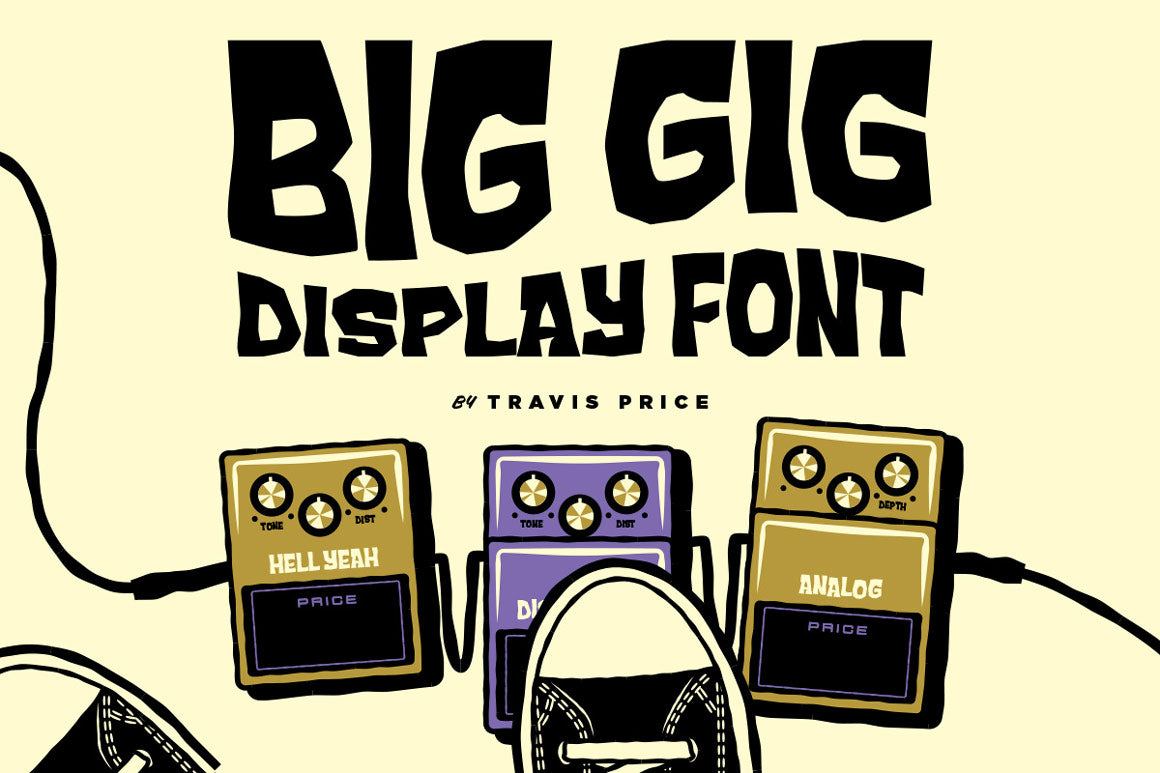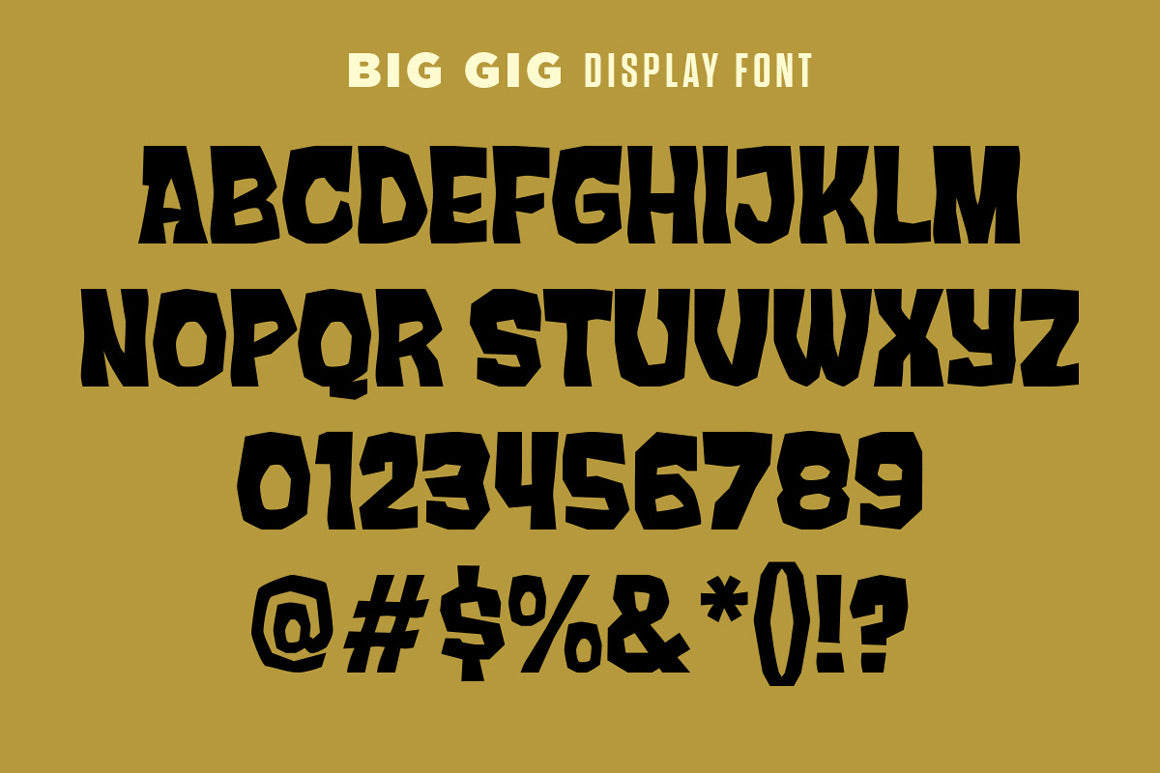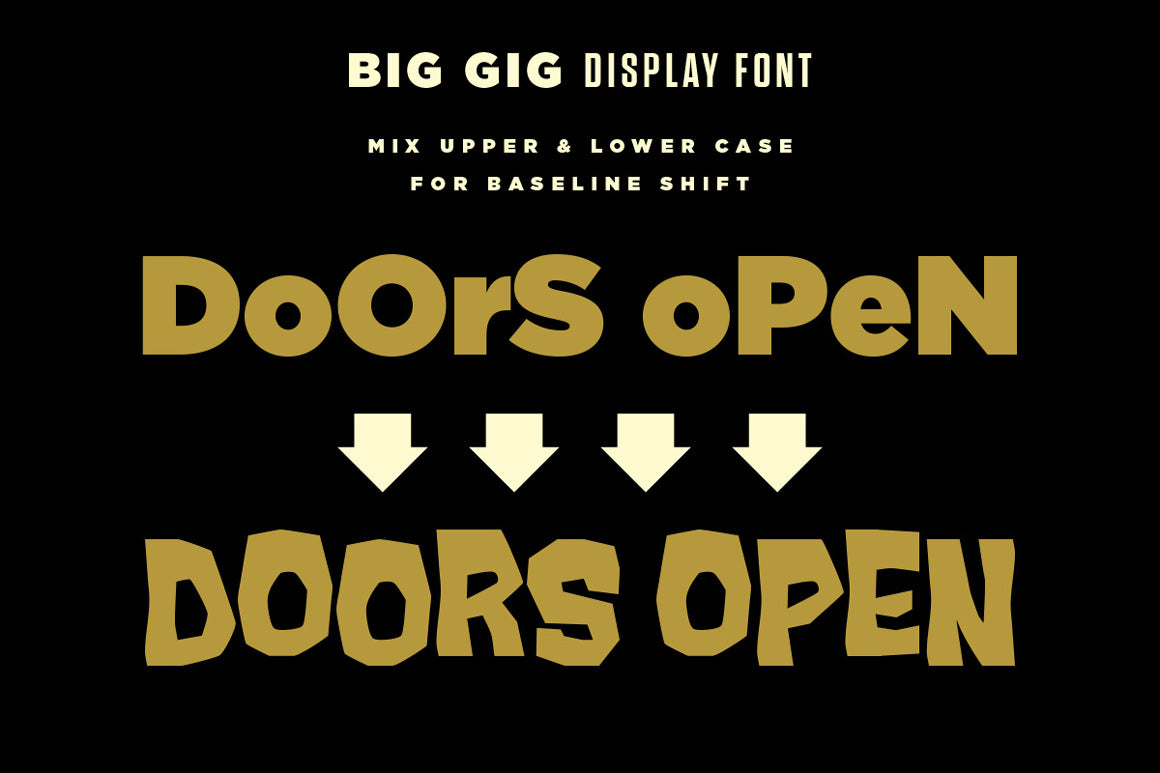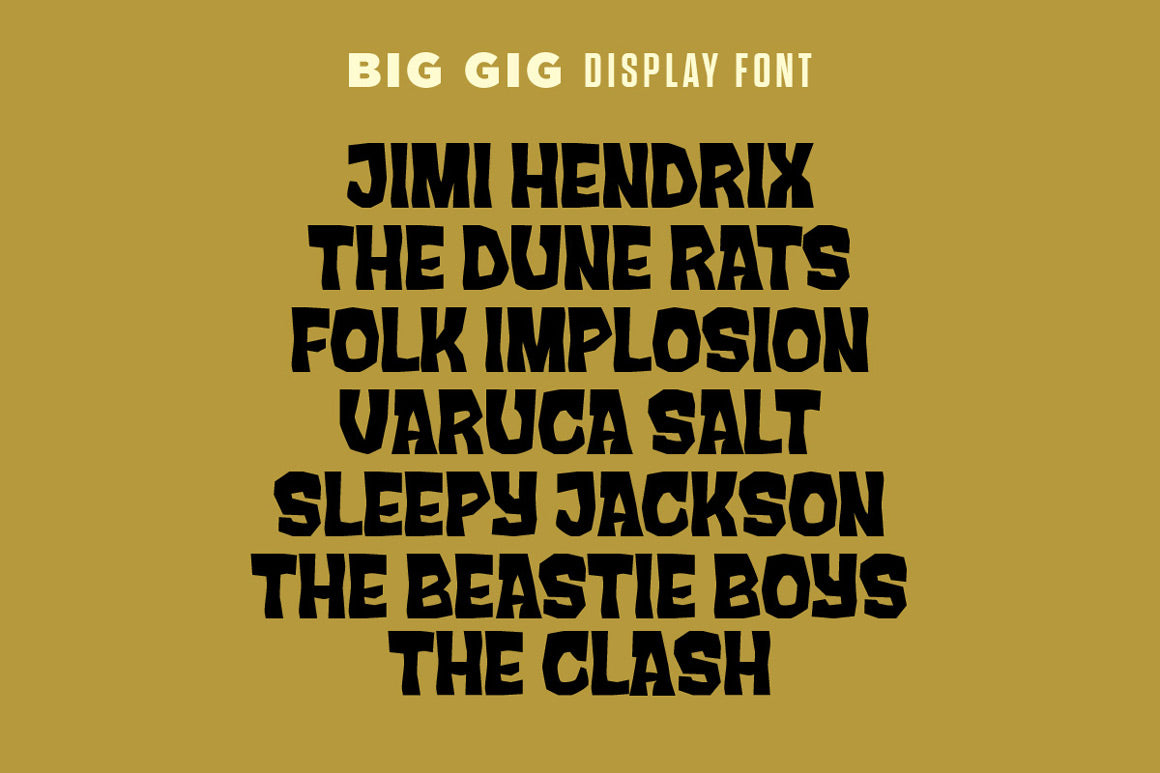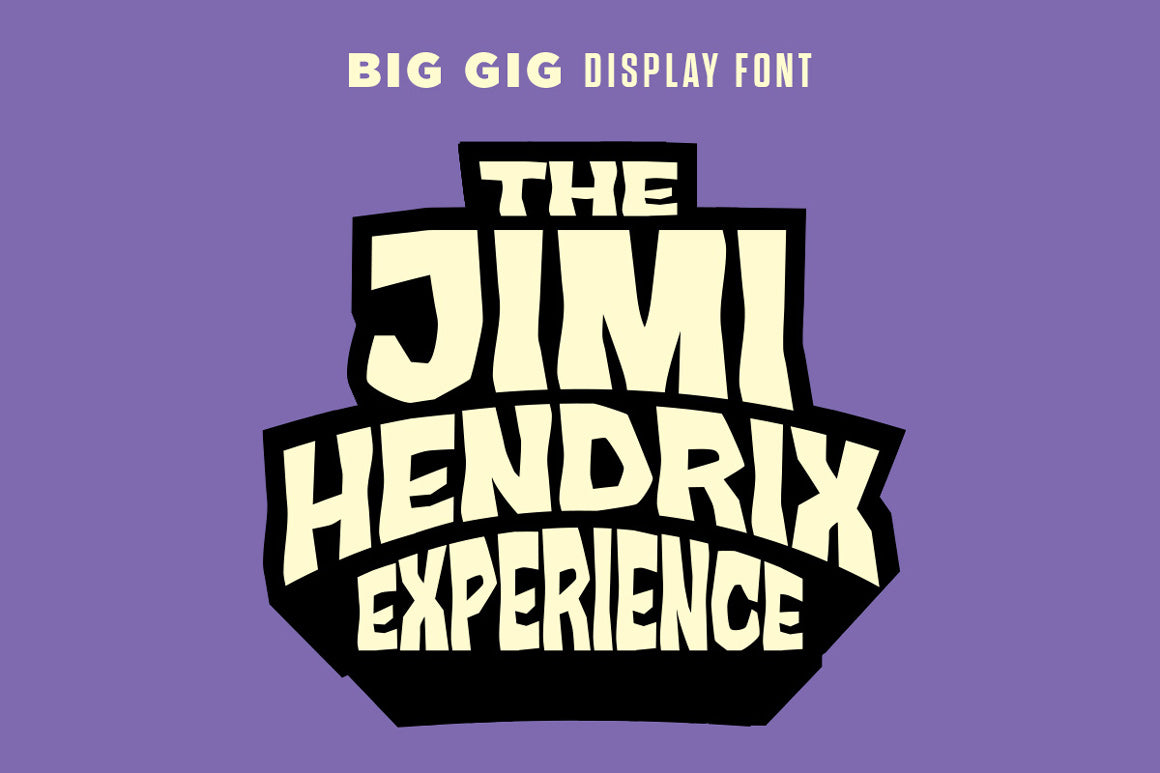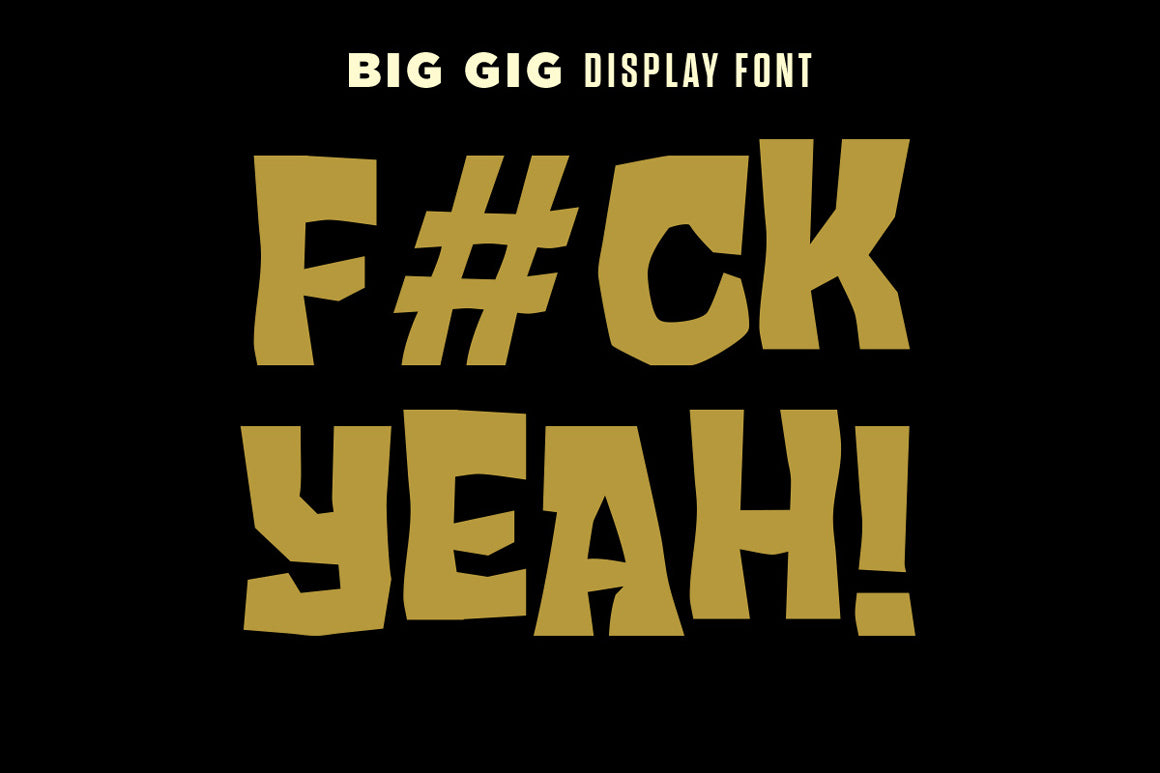
Big Gig Display Font
Big Gig is a rough wood cut style font perfect for gig posters to help get the word out there.
“The reason for creating Big Gig is I wanted a rougher looser font for gig poster work that could be easily stretched and manipulated to fit a space in a composition but also have synergy with my illustration.” – Travis Price